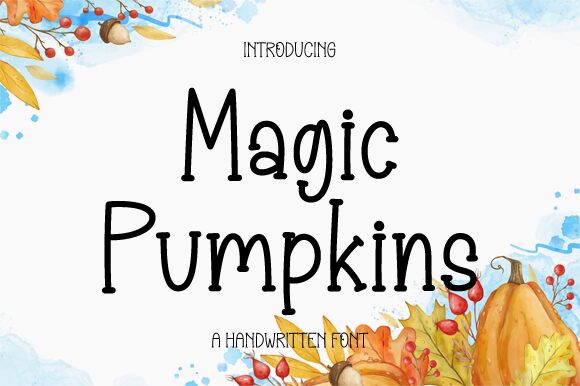
Magic Pumkins is a whimsical creation by Graphix Line Studio, embodying a playful comic style that exudes charm and quirkiness. This display font dances with lively irregularities and hand-drawn warmth, inviting an informal, friendly vibe to any project it graces. Its letters boast gentle curves and varying strokes, reminiscent of handwritten notes passed between friends.
In its distinctiveness, Magic Pumkins shines in contexts requiring a touch of personality – think children's books, casual event invitations, or creative branding that aims to strike a conversational tone with its audience. Its approachable character ensures designs are imbued with an authentic and engaging presence that's hard to overlook.